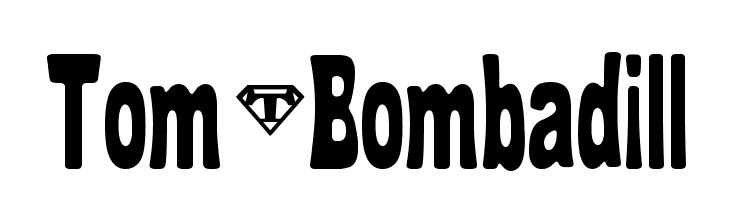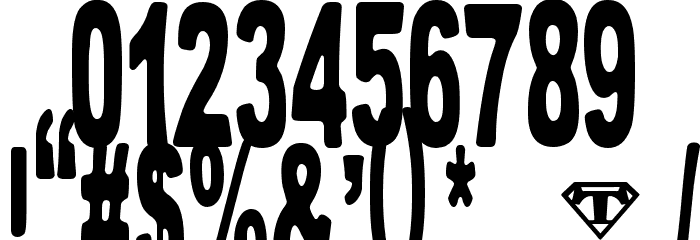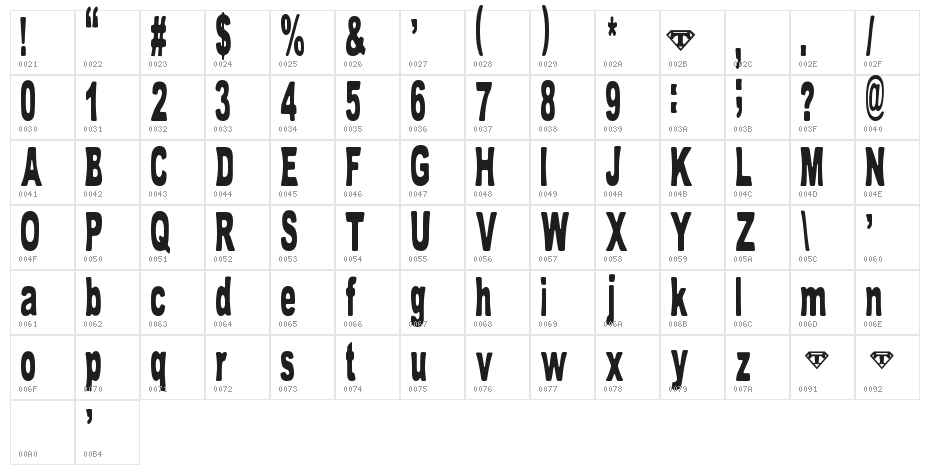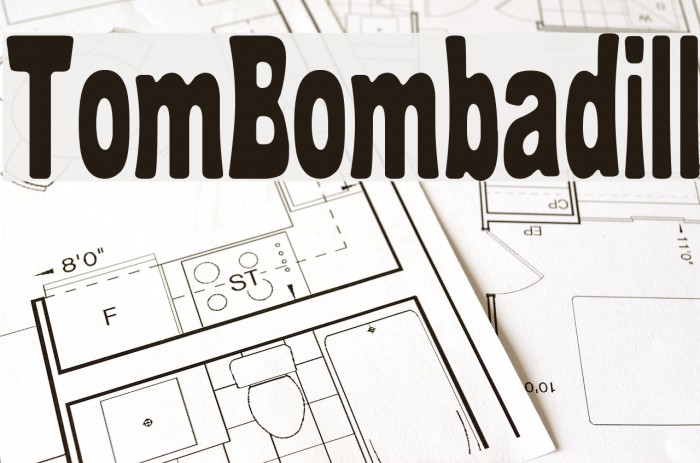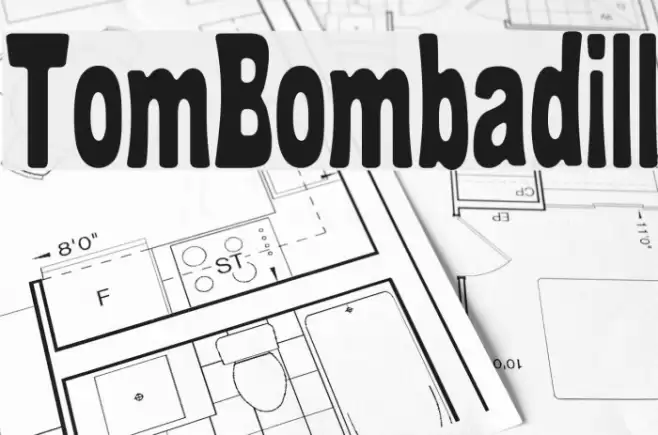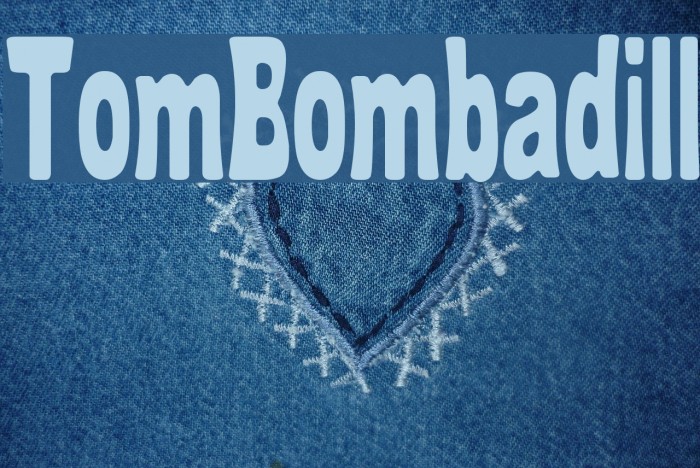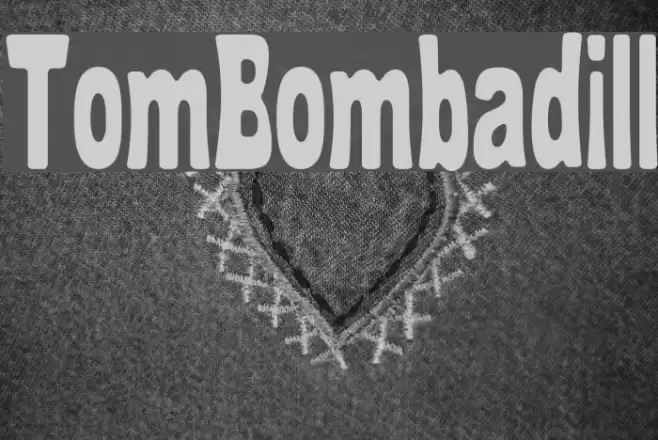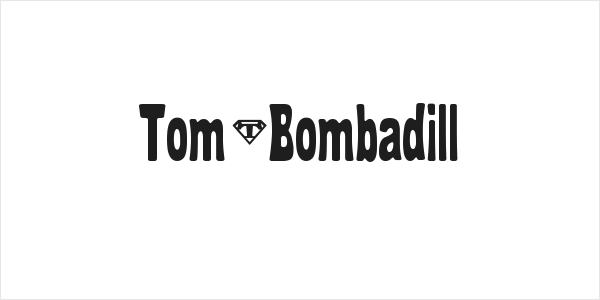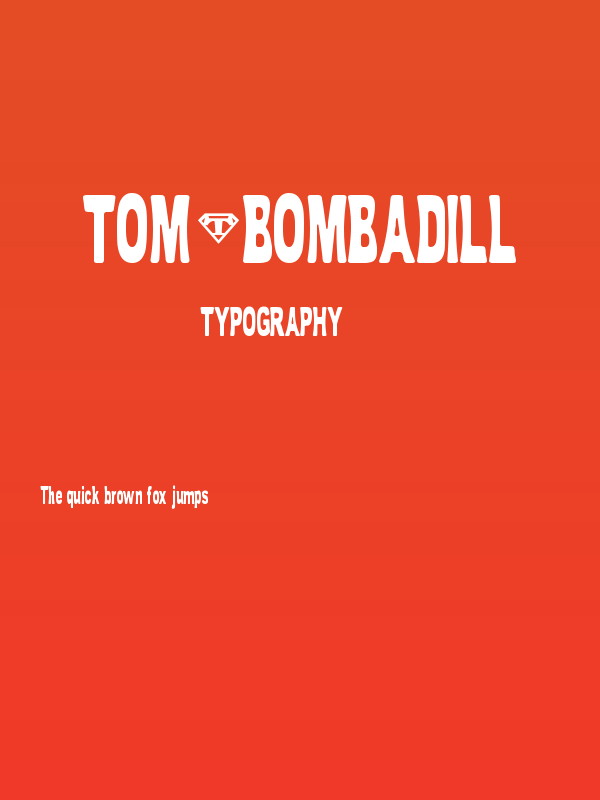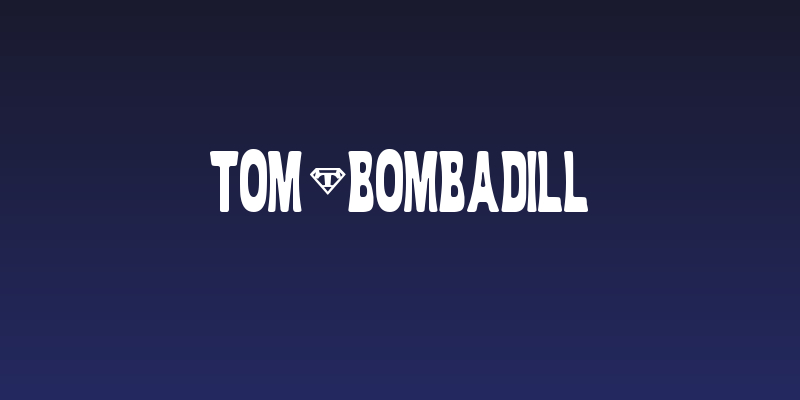
Tom-Bombadill Font
Tom-Bombadill Description
This font features a bold and playful design with thick, rounded strokes that give it a whimsical and friendly appearance. The characters are slightly irregular, adding a hand-drawn feel that enhances its charm. The uppercase letters are tall and commanding, while the lowercase letters maintain a consistent style with a slightly condensed form. Numbers and special characters follow the same bold and playful aesthetic, making the font versatile for various creative applications. The overall style is reminiscent of comic or cartoon lettering, making it ideal for projects that require a fun and engaging typeface.
| Proposed Projects | Ideal for children's books, comic strips, playful branding, and creative posters. |